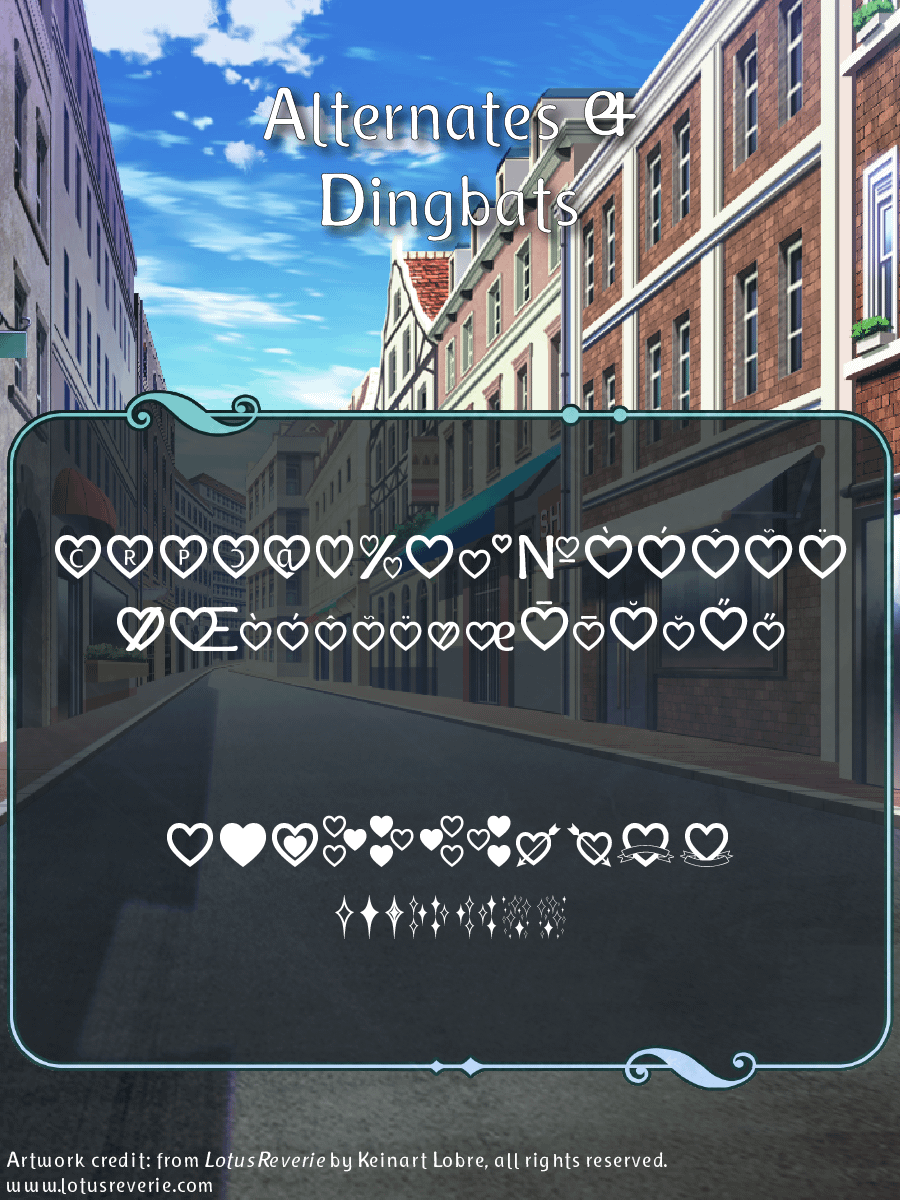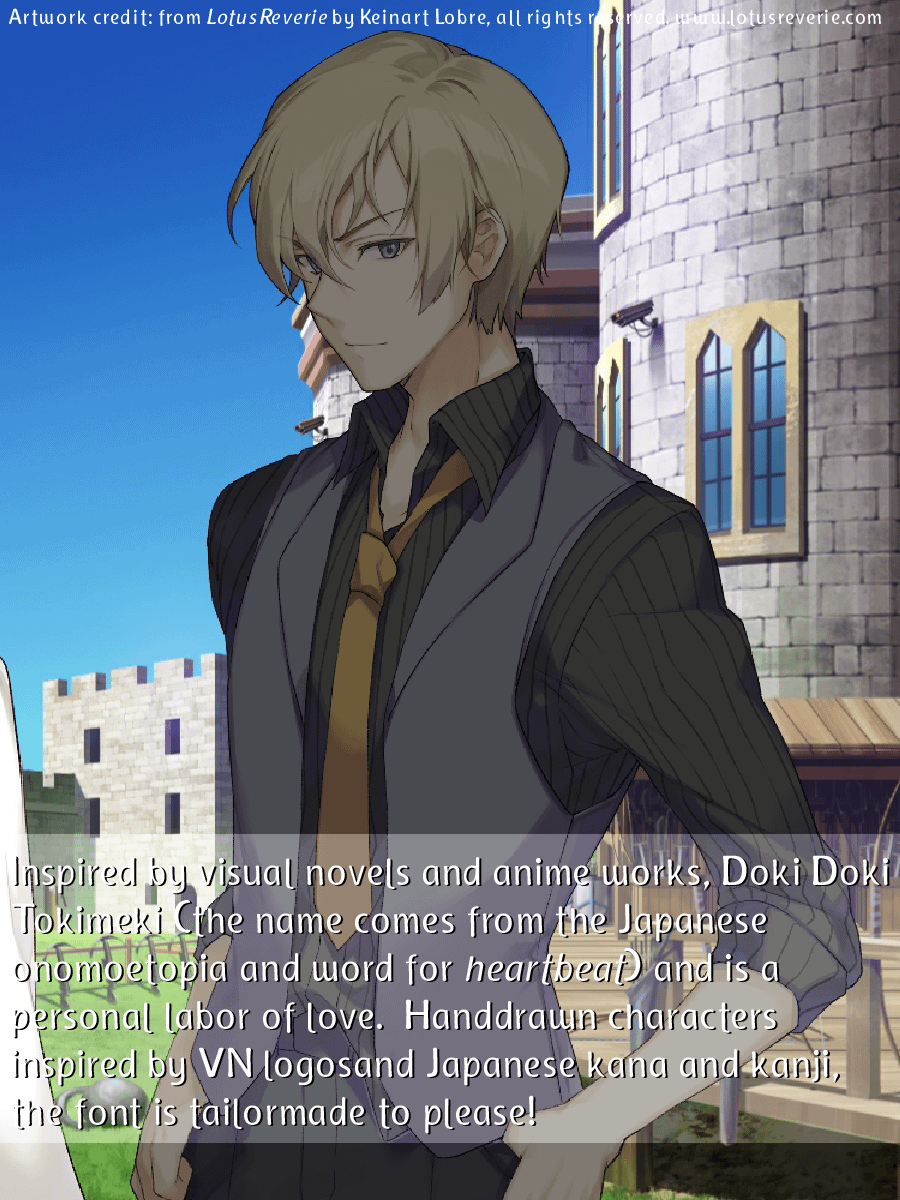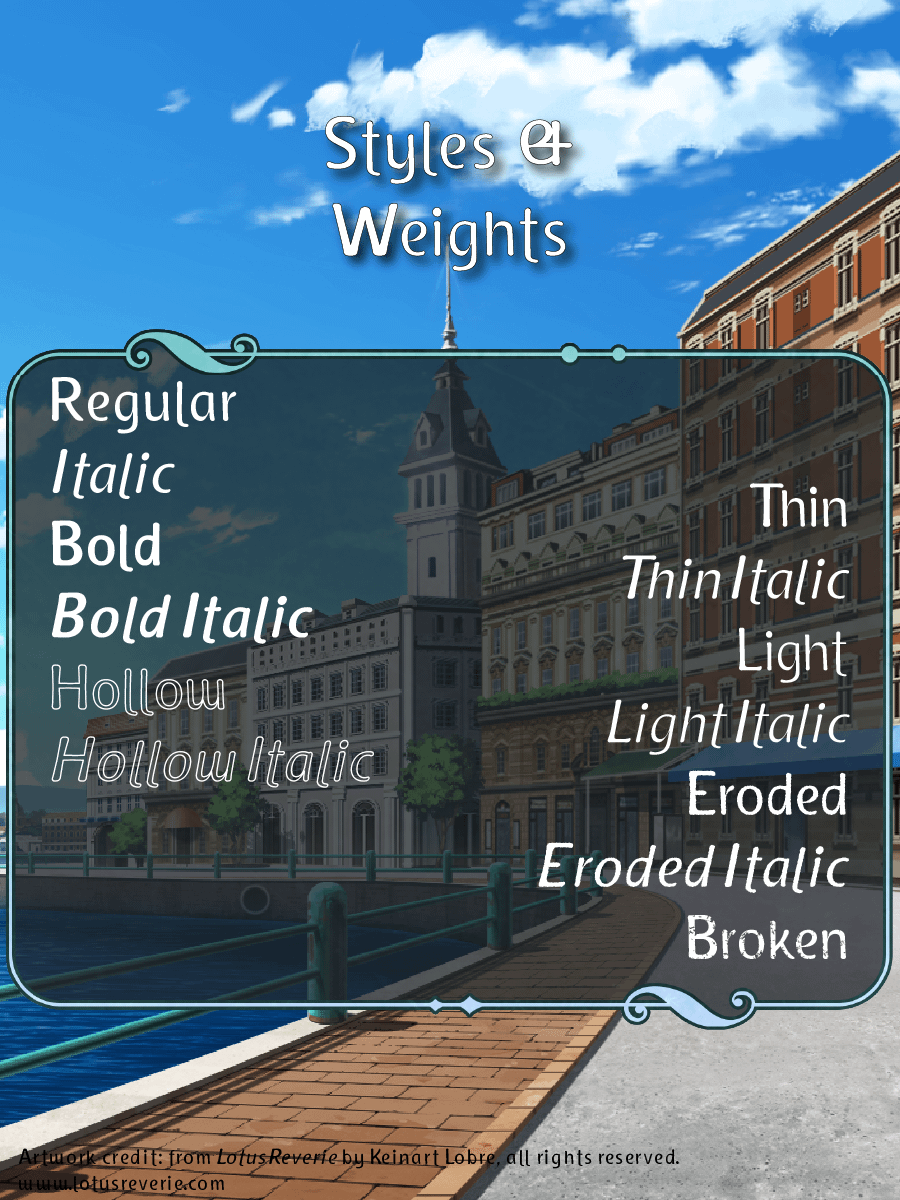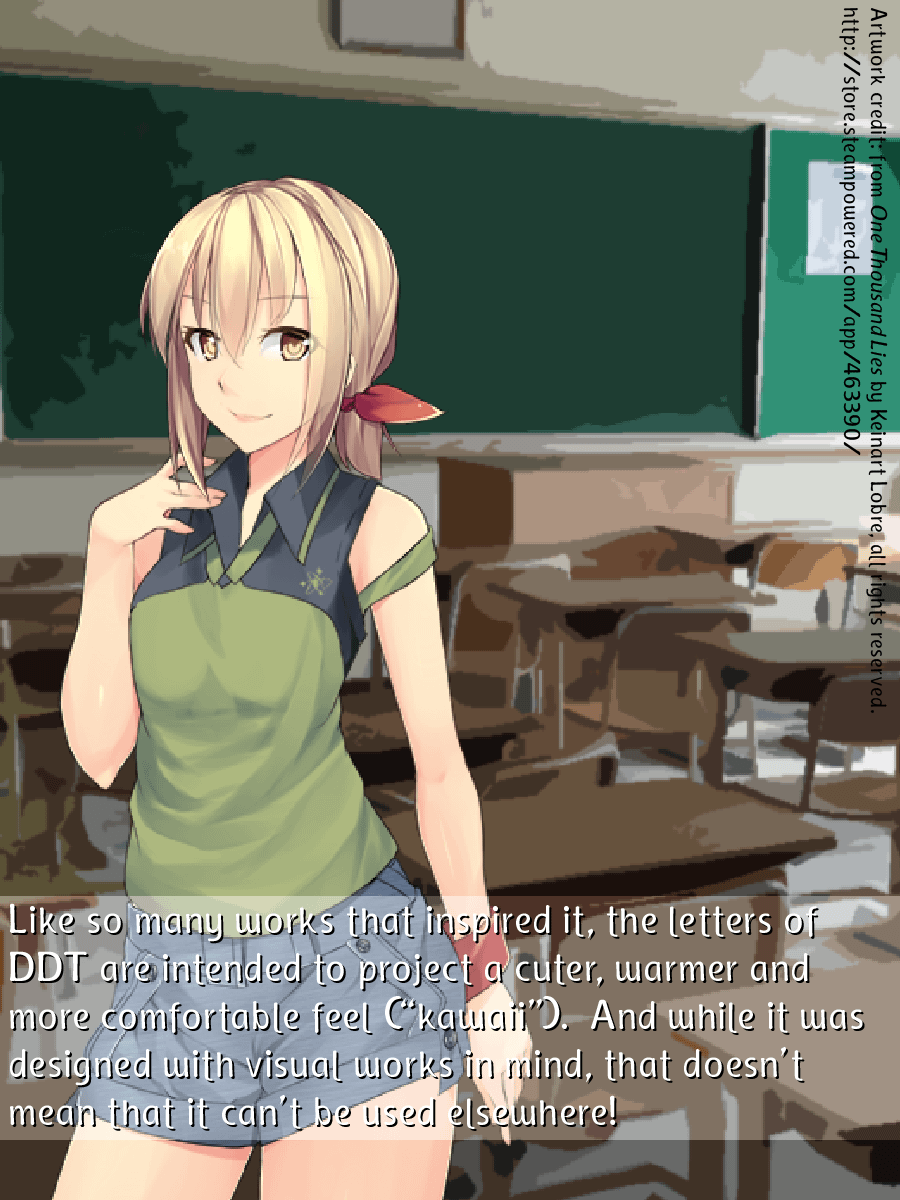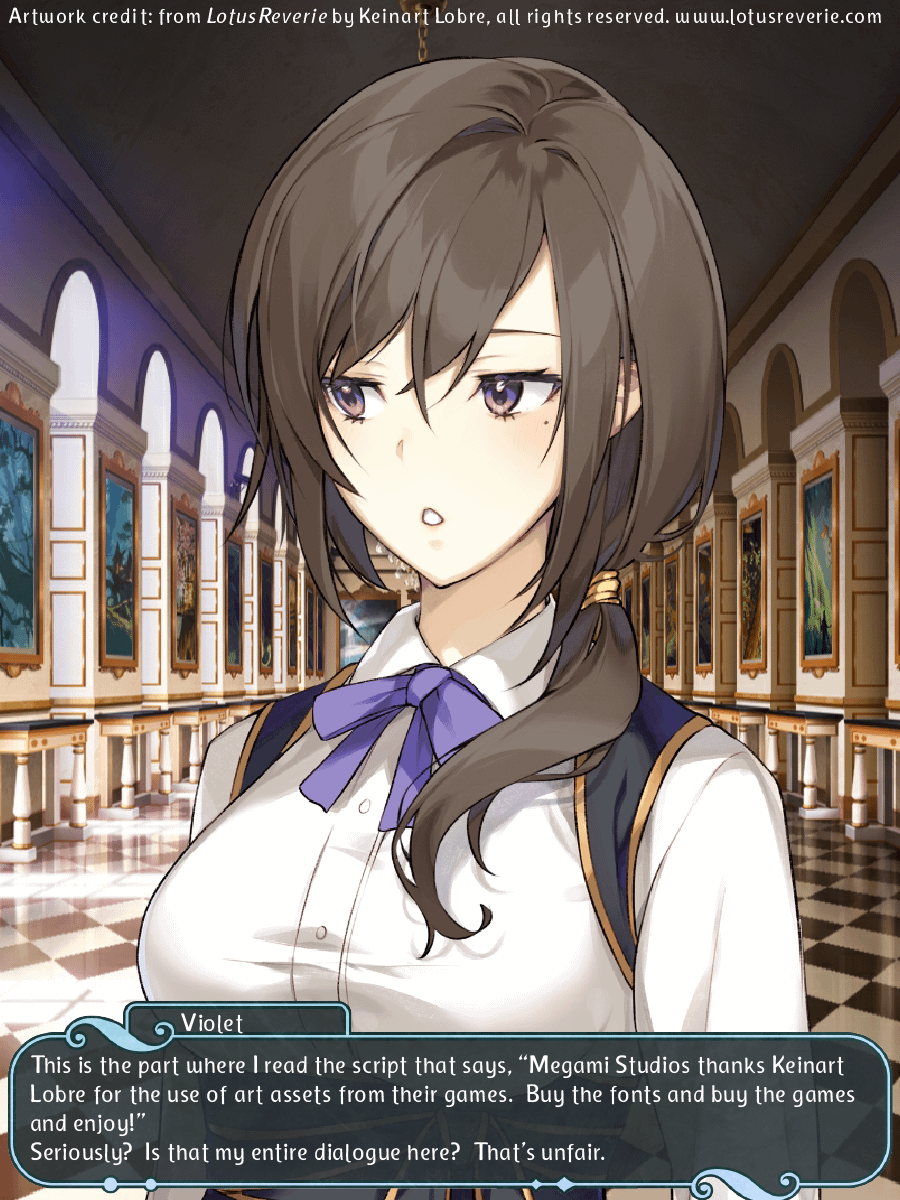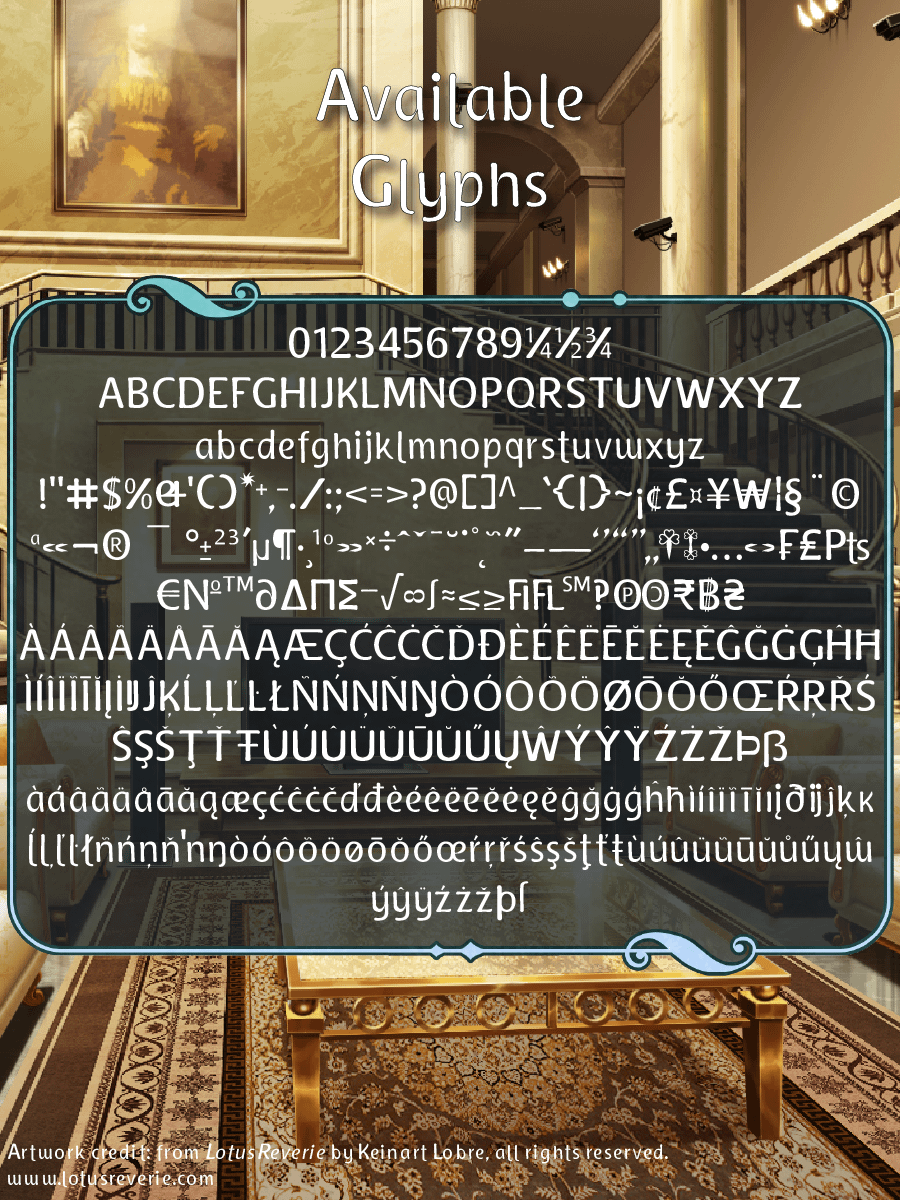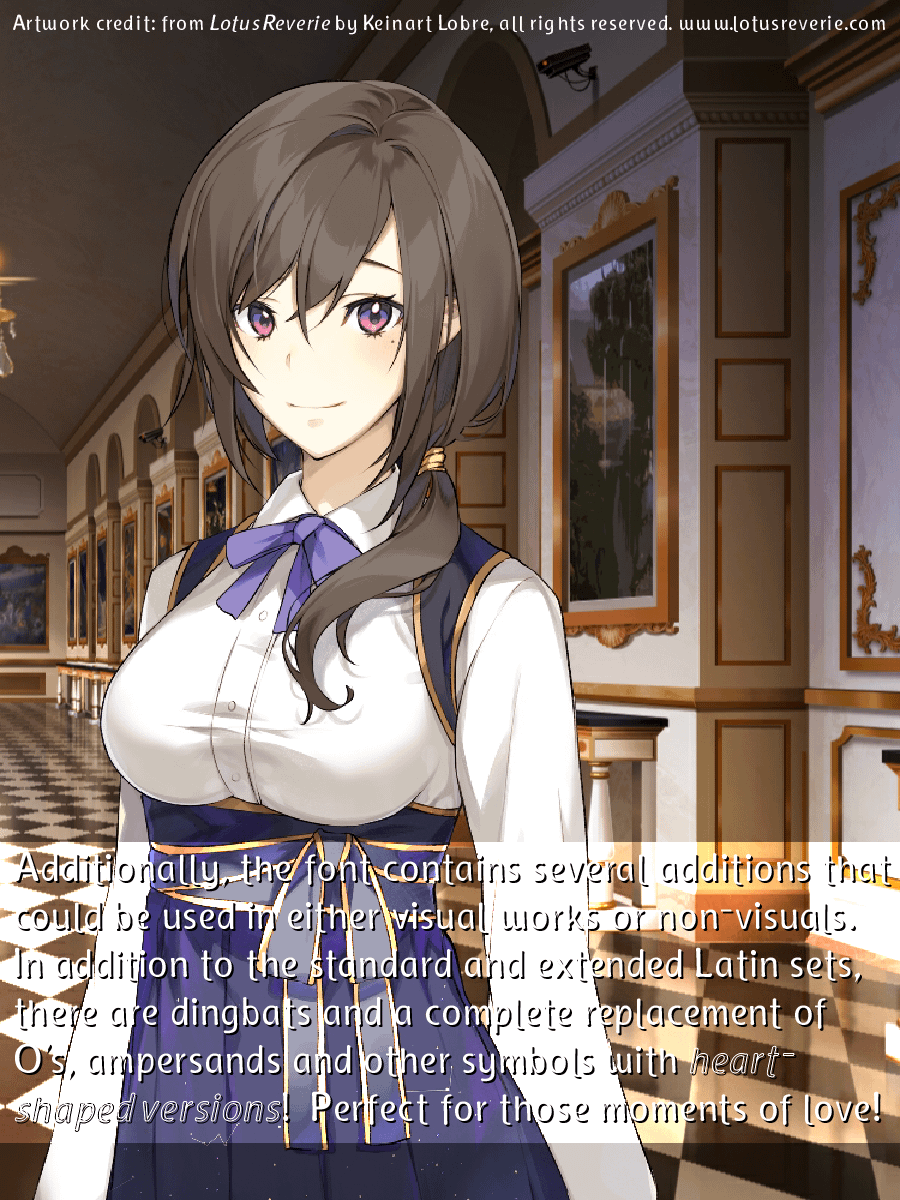
Doki Doki Tokimeki font - Eroded Italic weight
Designed with visual novels and romantic text in mind, Doki Doki Tokimeki (taken from the Japanese sound for a heartbeat and the word heartbeat itself) is a romantically-inclined sans serif. From playful, yet friendly letters to a range of dingbats and a series of alternate heart-shaped glyphs, it’s sure to make your heart go pitter-patter as well!